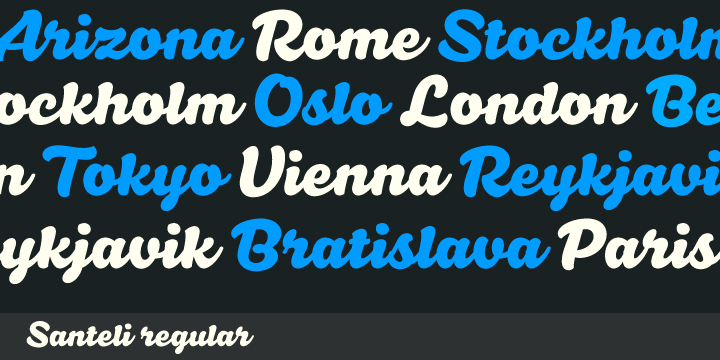
Santeli
Santeli is a huge and bold script family comprising of three weights. It also evokes a super smooth feeling flavoured with sharp edges for an elevated glamorous effect. Download Santeli font detail Foundry: Mika Melvas Publisher: Mika Melvas Released: Mar 21, 2012 Price $35